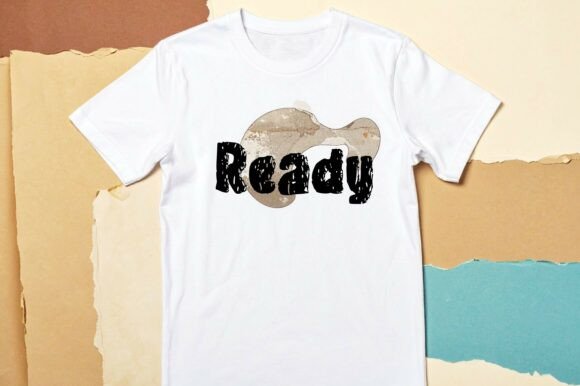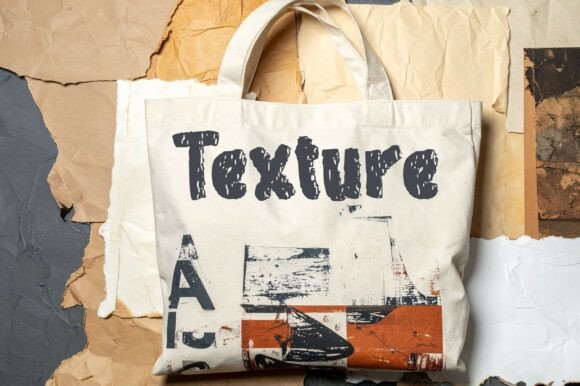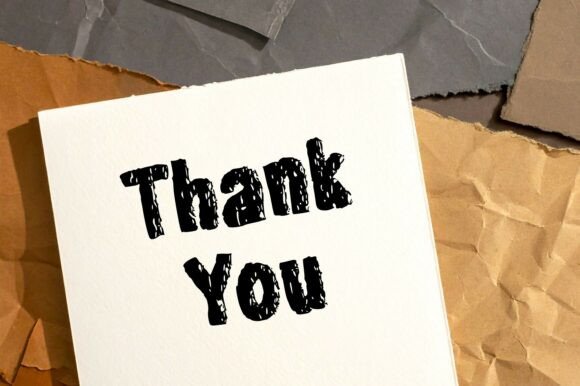
Uncover the Timeless Allure of Caves Font
Remember the moment when you stumbled upon a hidden cave, its rugged walls and ancient stones whispering stories of a bygone era? The thrill of discovery still lingers, doesn’t it? For designers, finding the perfect font can evoke a similar sense of excitement and wonder. Welcome to Caves, a masterfully distinguished decorative display font that embodies the essence of the great outdoors.
With its organic, unrefined elegance, Caves Font injects a tangible warmth into your designs, kindling an air of natural authenticity that’s bursting with adventure. Every angular letterform is a masterpiece in itself, skillfully shaped with irregular fringes, finely chiseled, and etched for a handcrafted charisma that triumphs over digitized sophistication.
Caves Font transcends the confines of a typical font, promising an awe-inspiring journey through the wilderness with every imprint. Its gentle imperfections produce a captivating, singular aesthetic that’s as versatile as nature itself.
Caves Font Key Features
- Unique Characteristics: Caves Font features a unique, distressed aesthetic with a rugged, cave-like texture, making it perfect for designs that need a touch of ruggedness.
- Legibility: Despite its distressed appearance, Caves Font is highly legible, making it suitable for body text and longer passages.
Caves Font Review
Overall, I was pleasantly surprised by the Caves Font. It’s a great addition to any project that needs a touch of ruggedness and natural charm.
- Unique letterforms: The font’s irregular shapes and varying line weights give it a distinctive, hand-drawn feel.
- Wide character set: Caves Font has a comprehensive character set, making it suitable for a variety of projects, from body text to headings.
- Good legibility: Despite its unconventional design, the font remains easy to read, especially at larger sizes.
- Limited expressiveness: While the font is great for certain projects, it may not be the best choice for those requiring high expressiveness or emotional depth.
- Not ideal for small text: The font’s irregular shapes and varying line weights can make small text sizes appear cluttered or difficult to read.
Overall, I think Caves Font is a solid choice for designers looking for a unique, natural font. Its limitations are relatively minor, and its strengths make it a great addition to any project requiring a touch of ruggedness.
Tips for Getting the Most Out of Caves Font
Here are some tips to help you get the most out of Caves Font:
- Use Caves Font to create a unique and eye-catching heading or title.
- Combine Caves Font with other fonts to create a visually appealing and dynamic design.
- Experiment with different font sizes, colors, and styles to achieve the desired effect.
Here are some common use cases for Caves Font:
- Headings and titles in graphic design projects.